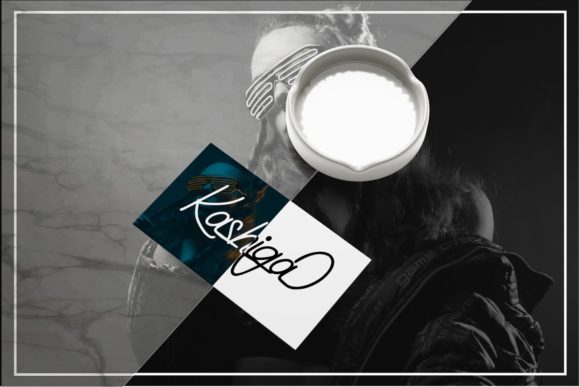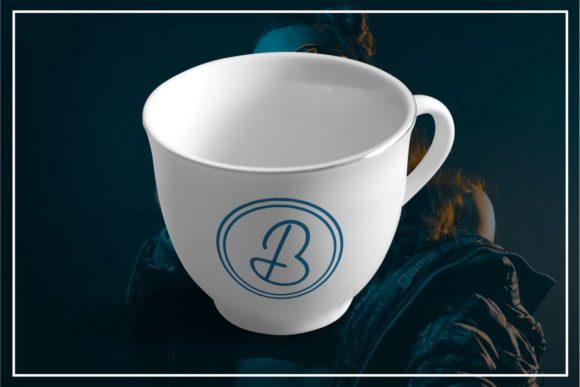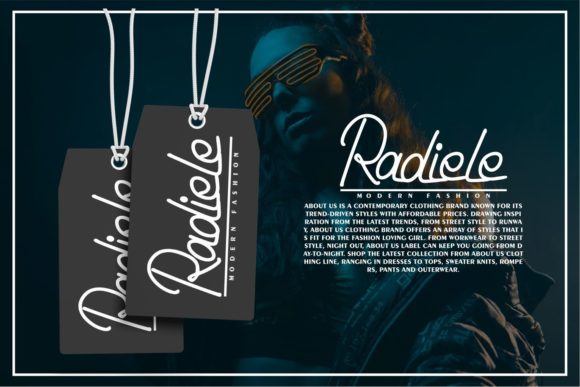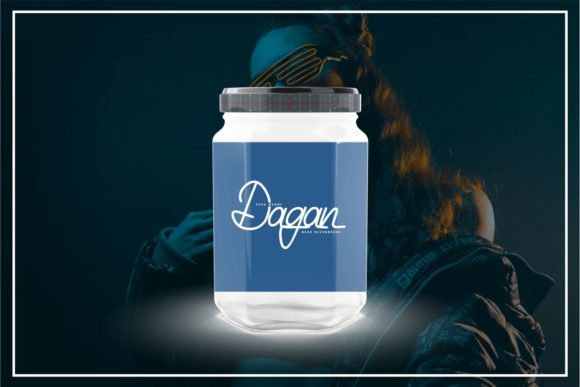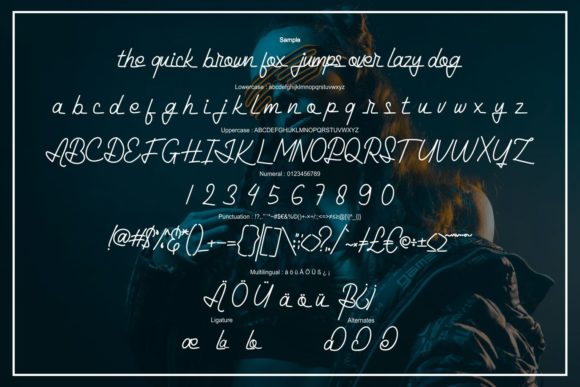
Introducing Anastya Font: Elevate Your Designs with a Touch of Authenticity
Are you tired of using the same old fonts in your design projects? Do you want to add a touch of uniqueness and personality to your creations? Look no further than Anastya Font, a stunning handwritten font that is sure to take your designs to the next level. With its well-balanced and beautiful aesthetic, Anastya Font is the perfect choice for designers and crafters looking to add a dash of authenticity to their work.
The Unique Charm of Anastya Font
Anastya Font is a one-of-a-kind typeface that boasts an incredibly authentic feel. Its handwritten style is both elegant and rustic, making it perfect for a wide range of design projects, from wedding invitations and branding materials to packaging and digital media. The font’s unique charm lies in its imperfections, which give it a warm and inviting feel that is sure to capture the attention of your audience.
Effortlessly Create Standout Designs
With Anastya Font, you can effortlessly turn any design project into a standout creation. The font’s well-balanced design ensures that it is easy to read and understand, making it perfect for use in body text, headings, and titles. Whether you’re working on a logo, brochure, or social media graphic, Anastya Font is sure to add a touch of sophistication and style to your design.
Key Features of Anastya Font
• Handwritten style: Anastya Font features a beautiful handwritten style that is both elegant and rustic.
• Well-balanced design: The font’s well-balanced design ensures that it is easy to read and understand.
• Authentic feel: Anastya Font has an incredibly authentic feel that is sure to add a touch of personality to your designs.
• Unique charm: The font’s unique charm lies in its imperfections, which give it a warm and inviting feel.
• Versatile: Anastya Font is perfect for use in a wide range of design projects, from wedding invitations and branding materials to packaging and digital media.
Why Choose Anastya Font?
So why choose Anastya Font over other fonts on the market? Here are just a few reasons why designers and crafters are falling in love with this beautiful typeface:
• Uniqueness: Anastya Font is a one-of-a-kind typeface that is sure to set your designs apart from the crowd.
• Elegance: The font’s elegant handwritten style makes it perfect for use in high-end designs.
• Authenticity: Anastya Font has an incredibly authentic feel that is sure to add a touch of personality to your designs.
Tips for Using Anastya Font
Here are a few tips for using Anastya Font in your design projects:
• Use it as a headline font: Anastya Font is perfect for use in headlines and titles, where its unique charm can really shine.
• Pair it with a sans-serif font: Pair Anastya Font with a sans-serif font for a beautiful contrast that adds visual interest to your design.
• Experiment with colors: Anastya Font looks great in a variety of colors, so don’t be afraid to experiment and find the perfect hue for your design.
In conclusion, Anastya Font is a beautiful and unique handwritten font that is sure to elevate your designs to the next level. With its well-balanced and authentic aesthetic, this font is perfect for designers and crafters looking to add a touch of personality to their work. Whether you’re working on a logo, brochure, or social media graphic, Anastya Font is sure to make your design stand out from the crowd.